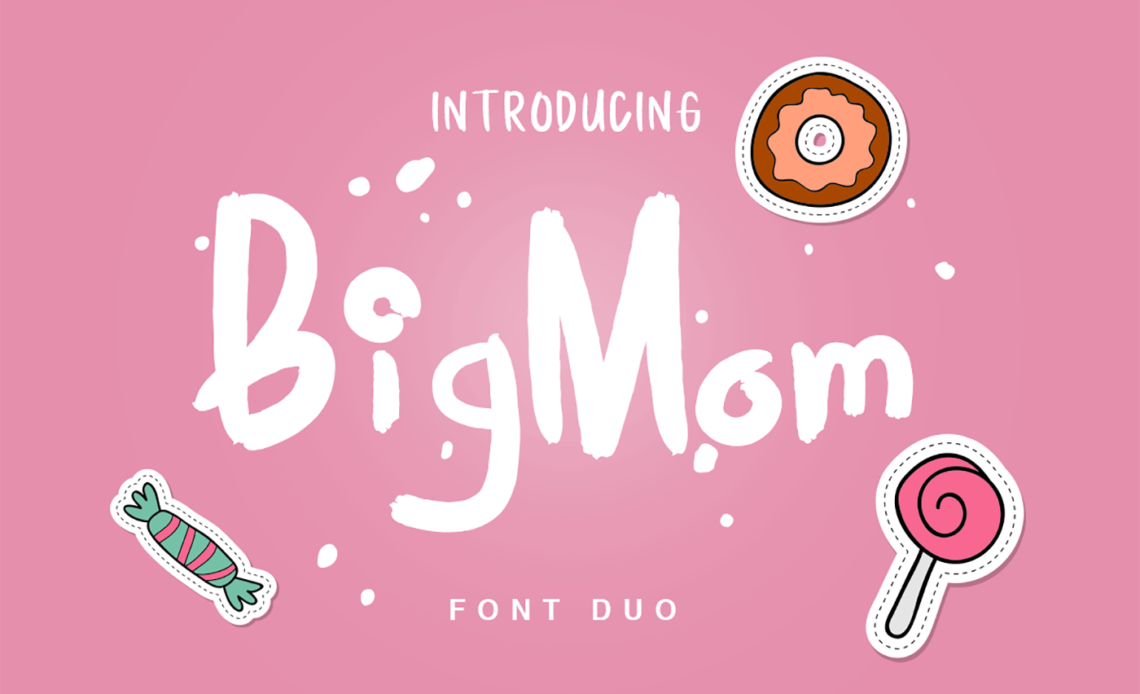
Introducing BigMom Font: The Dynamic Duo for Exceptional Designs!
In the realm of visual storytelling, fonts reign supreme as the architects of expression. With their captivating shapes and captivating curves, fonts possess the power to transform ordinary words into extraordinary masterpieces. Among this elite typography ensemble, BigMom Font stands tall, a resplendent duo that embodies elegance and playfulness.
Crafted with meticulous precision by Factory738, the BigMom Font Duo is a harmonious blend of a lively script and an alluring sans serif. The script, with its graceful swashes and whimsical charm, dances across the page like a playful melody. Its expressive nature adds a touch of personality and warmth to any design.
Complementing the script is the sans serif, a modern marvel of clean lines and geometric perfection. Its crisp edges and sturdy structure provide a solid foundation for the script's vibrant energy. Together, they form a harmonious partnership, each element enhancing the other's beauty.
Journey into the World of BigMom Font Duo:
With BigMom Font Duo as your creative companion, the possibilities are boundless. Its versatility knows no bounds, seamlessly adapting to an array of design projects. Whether you're crafting captivating social media graphics, designing eye-catching logos, or creating stunning wedding invitations, BigMom Font Duo rises to the occasion.
• Unleash Your Creativity in Branding:
Elevate your brand identity with the dynamic duo. The script's playful charm adds a personal touch to logos, while the sans serif's confident presence ensures clarity and legibility. Together, they create a cohesive brand experience that resonates with your audience.
• Craft Unforgettable Invitations and Announcements:
Make your special occasions truly memorable with BigMom Font Duo. The script's enchanting flow adds a touch of elegance to wedding invitations, while the sans serif's crisp lines provide clarity for important information. Create invitations that capture the essence of your celebration.
• Captivate Your Audience with Social Media Graphics:
In the fast-paced world of social media, captivating graphics are the key to capturing attention. BigMom Font Duo provides the perfect tools to create visually stunning graphics that engage your audience and leave a lasting impression. Let your designs shine and make your brand stand out.
• Unleash Your Creativity in Digital and Print Designs:
From brochures and flyers to posters and packaging, BigMom Font Duo adds a touch of sophistication to any print project. Its versatility allows you to create designs that speak to your audience and leave a lasting impression. Let your creativity flow and produce designs that captivate and inspire.
Immerse Yourself in the Beauty of BigMom Font Duo:
The BigMom Font Duo is an exceptional creation, a testament to the power of well-crafted typography. Its dual nature allows you to effortlessly mix and match, creating captivating combinations that reflect your unique style. Embrace the harmony of the script and sans serif, and let your designs flourish.
Join the Creative Revolution with BigMom Font Duo:
Take your designs to new heights with BigMom Font Duo. Its expressive nature and versatile charm make it the perfect choice for designers of all levels. Embark on a creative journey and create designs that leave an indelible mark. Let BigMom Font Duo be your muse and watch your designs transform into works of art.